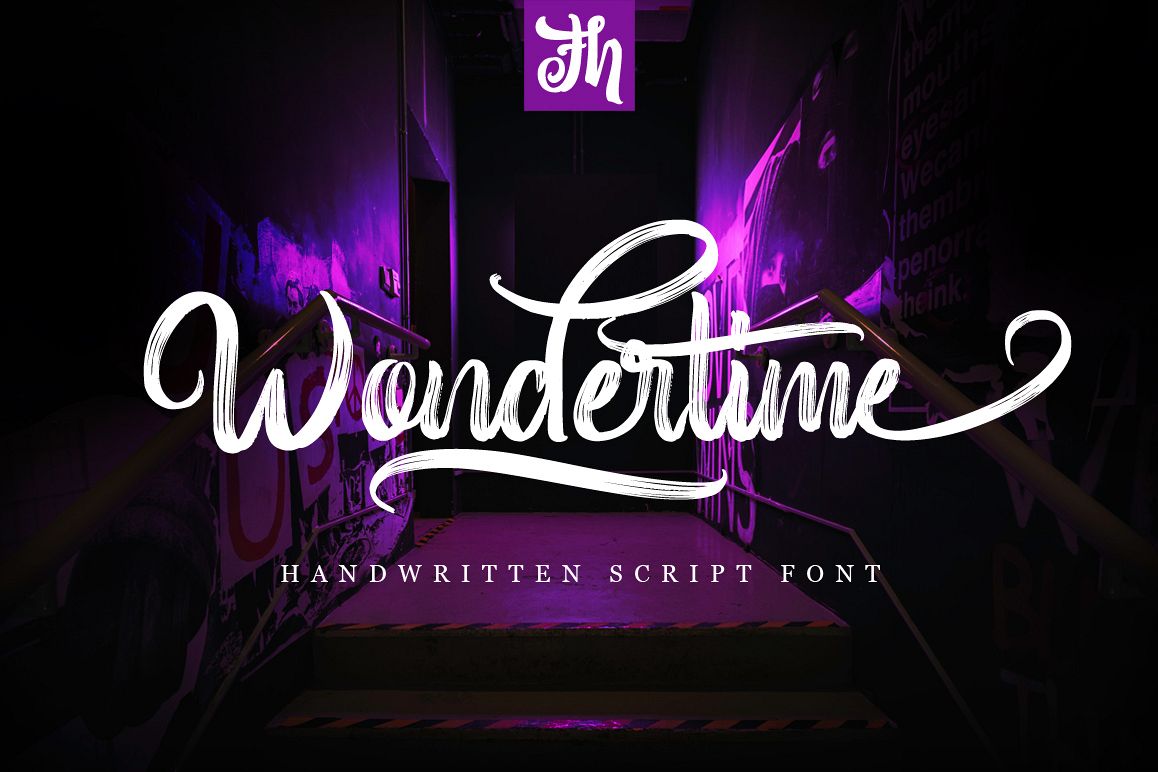
Wondertime - Handwritting Script Font
Wondertime is handwritten script font with signature style. Suitable for design, element design, wedding, event, t-shirt, logo, badges, sticker, and awesome work, etc...
Multilanguage Support: ÀÁÂÃÄÅÆÇÈÉÊËÌÍÎÏÐÑÒÓÔÕÖØÙÚÛÜÝßàáâãäåæçèéêëìíîïðñòóôõöøùúûüýÿ
- Unique style fonts